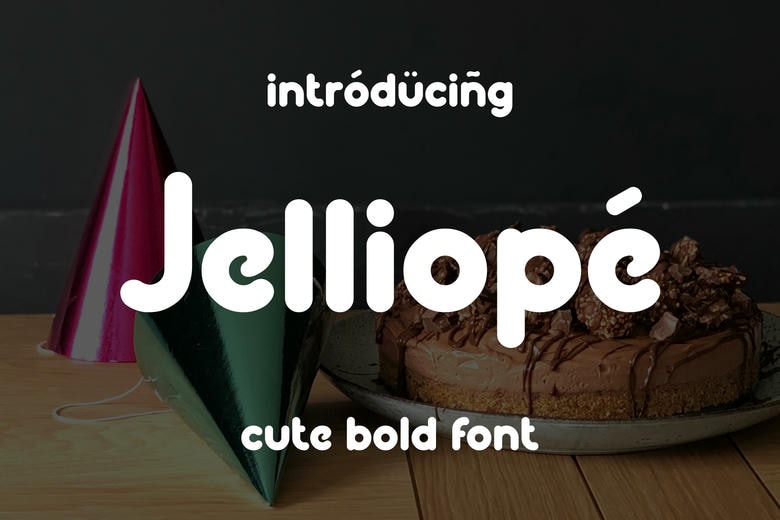
Jelliope Font
Jelliope distinguishes itself as an adorable, whimsical script font, an incarnation of graceful curves. Its charm shines best within logo creation, artisanal crafts, and buoyant design projects, casting an atmosphere of joyful creativity that communicates with a friendly twist. Jelliope ushers in an opportunity to breathe life and playfulness into your distinctive vision.
Jelliope Sans Serif Font